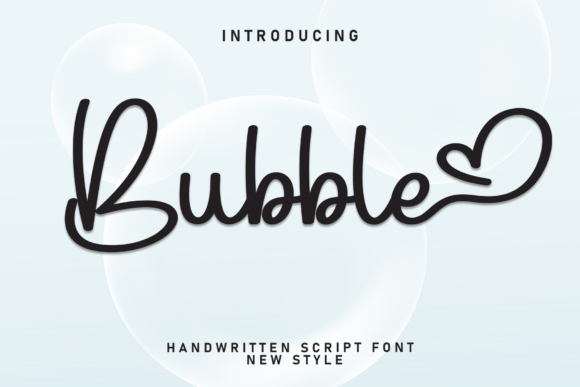
Creating Something Special: Where Design Meets Delight
There’s nothing quite like the feeling of crafting a design that captures the essence of a special moment – a wedding invitation, a birthday card, or a heartfelt message. It’s in these moments that we get to express ourselves and make a lasting impression on those we care about.
For designers looking to infuse a little extra magic into their creations, we’re excited to introduce the Bubble Font – a charming handwritten display font that’s sure to bring warmth and whimsy to any design. Perfect for adding a touch of sweetness and friendliness, this font is a valuable addition to any designer’s toolkit. With its delightful, hand-crafted feel, the Bubble Font is sure to capture hearts and leave a lasting impression.
Bubble Font Key Features
- Unique Characteristic: Bubble Font is a distinctive font style that resembles bubbles or rounded shapes, creating a playful and whimsical effect.
Bubble Font Review
As a designer, I’ve had the chance to work with a variety of fonts, and I must say that the Bubble Font has its unique charm. ✨ I love how it adds a playful and whimsical touch to any design project. The rounded edges and soft curves make it perfect for creating a friendly and approachable atmosphere.
Here are some things that work well with the Bubble Font:
- ✨ Unique and playful aesthetic
- ✨ Suitable for children’s products, food packaging, and other lighthearted designs
- ✨ Can be easily paired with bold and modern fonts for contrast
- ⚠️ May not be suitable for formal or professional designs
- ⚠️ Can be difficult to read in smaller font sizes or at a distance
- ⚠️ May not be as versatile as other fonts, such as sans-serif or serif fonts
Overall, I think the Bubble Font is a great addition to any designer’s toolkit. While it may not be the best choice for every project, it’s perfect for adding a touch of whimsy and fun to your designs.
Bubble Font is perfect for creating playful and eye-catching titles, headings, and quotes.
Use it in social media graphics, blog posts, and marketing materials to add a touch of whimsy and fun.
Experiment with different font sizes and colors to create a unique and attention-grabbing design.
Alternatives to Bubble Font
Playfair Display is an elegant, high-end serif font ideal for luxury branding and high-end publications. It features intricate details and ornate flourishes, making it perfect for creating a sophisticated and luxurious atmosphere. Unlike Bubble Font, Playfair Display is more formal and less playful, making it suitable for corporate and high-end designs.
Lato is a clean, modern sans-serif font designed for digital media. It’s highly legible and versatile, making it suitable for a wide range of applications, from body text to headings. Compared to Bubble Font, Lato is more minimalist and straightforward, lacking the playful, cursive elements of Bubble Font.
Crimson Text is a serif font designed for body text and readability. It features a classic, elegant design with a warm, subtle flair. Unlike Bubble Font, Crimson Text is more subdued and less attention-grabbing, making it suitable for longer blocks of text and publications that require a more neutral tone.